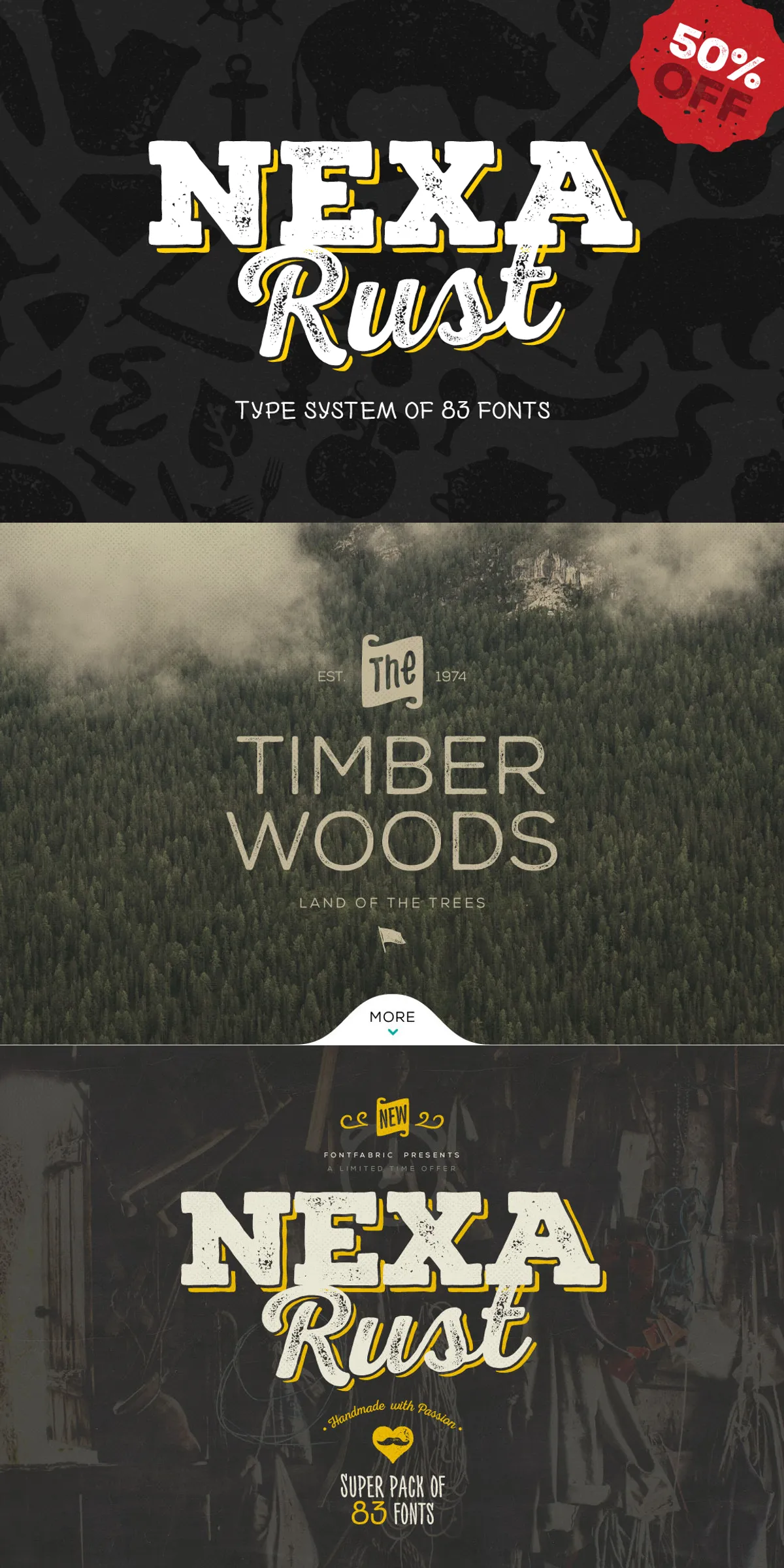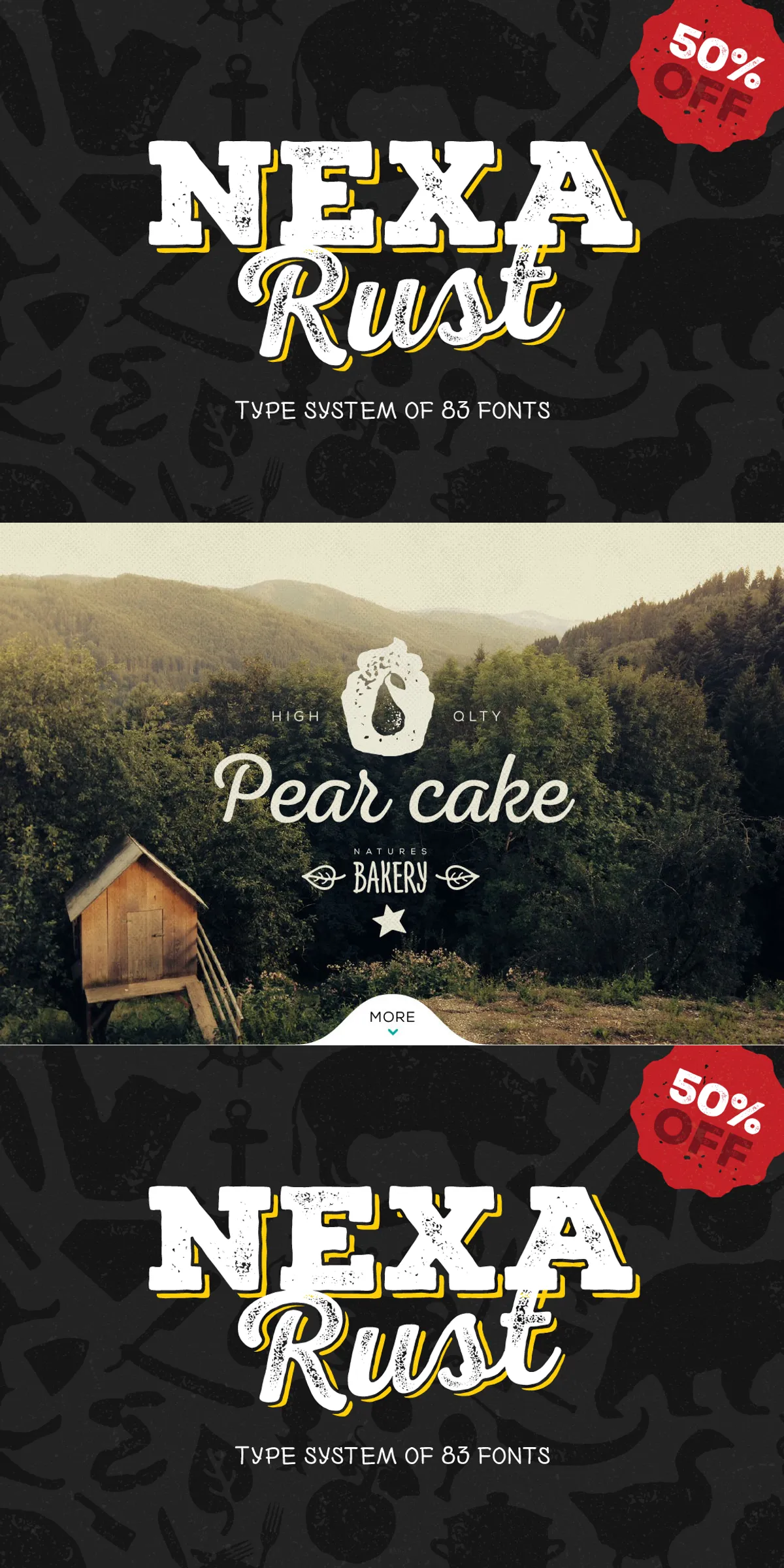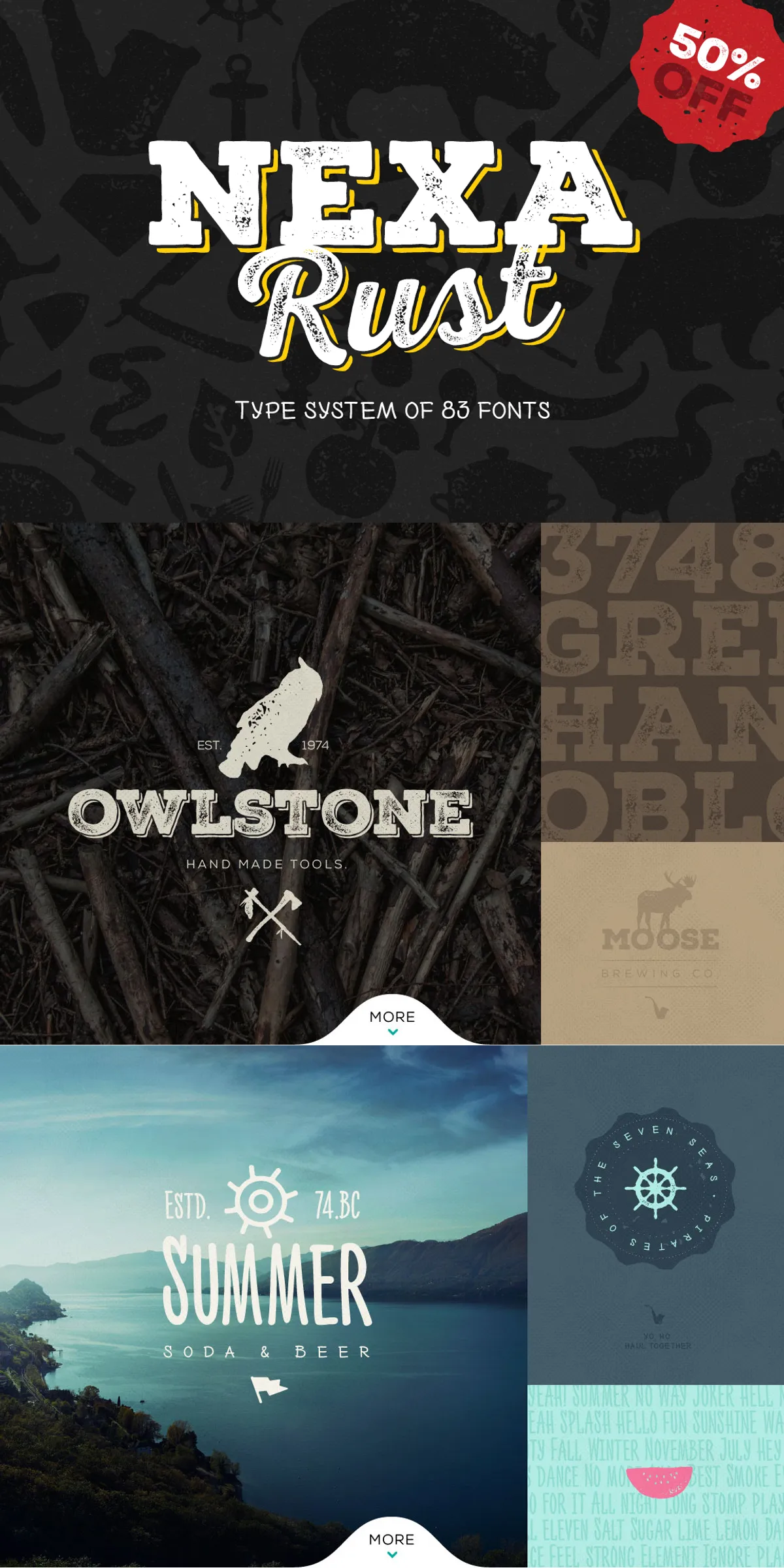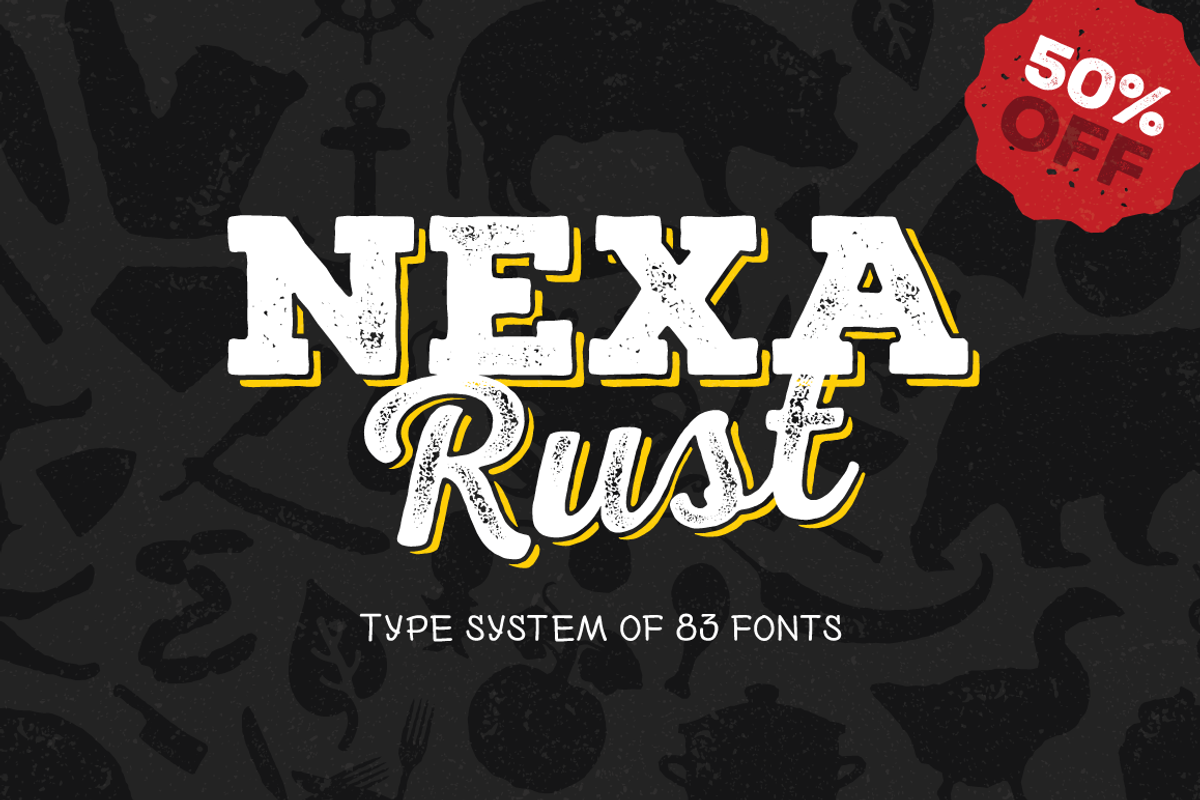
Step beyond the polished perfection of standard typefaces and dive into the raw, expressive world of Nexa Rust—a revolutionary font system born from the acclaimed Nexa and Nexa Slab families, now reinvented with a distinct, handcrafted edge. Developed by Fontfabric Type Foundry, Nexa Rust isn’t just a font—it’s a creative movement. Designed for designers who crave authenticity, character, and a touch of controlled chaos, this multifaceted system lets you push boundaries and define your visual voice with bold confidence.
Five Sub-Families, Infinite Possibilities
Nexa Rust is built on a foundation of diversity. With five distinct sub-families, it provides the tools to match any design mood and purpose:
- Nexa Rust Sans: Where clean structure meets organic imperfection. Ideal for modern headlines, editorial layouts, and interfaces that need an edge. The sans-serif style delivers crisp readability with a rough, tactile finish.
- Nexa Rust Slab: A powerful blend of robust slab serifs and a weathered, hand-drawn texture. Perfect for branding, logos, and posters that demand authority and presence. Its sturdy construction stands out in any medium.
- Nexa Rust Script: Introduces a flowing, expressive handwriting feel to the Rust ecosystem. Add elegance, warmth, and personal touch to invitations, product labels, or luxury branding with this beautifully irregular, yet legible script.
- Nexa Rust Handmade: Embrace the artisan spirit. This sub-family mimics the look of hand-stenciled, hand-painted, or hand-drawn lettering—each character carries subtle irregularities and texture that make your design feel truly unique and personal.
- Nexa Rust Extras: The creative cherry on top. This bonus collection includes special glyphs, decorative elements, and stylistic alternates that elevate your project from impressive to unforgettable. Whether it’s a custom icon, a decorative border, or a unique symbol, the Extras add that final, signature detail.
Warm, Rough, and Fully Loaded with Character
What truly sets Nexa Rust apart is its characteristic warm, rough look. Unlike clean, sterile fonts, Nexa Rust embraces imperfection. Subtle variations in stroke width, slight asymmetry, and a carefully calibrated level of saturation mimic real handwork—adding soul to your digital creations. This isn’t just a stylistic choice; it’s a design philosophy that connects your work to the human hand behind it.
Each sub-family is available in multiple weights, from light and delicate to bold and commanding. This range ensures that you can build a consistent, dynamic hierarchy within your design, controlling contrast and emphasis with precision across headlines, subheads, and body copy.
Engineered for Real-World Design, Not Just Theory
Designed with practicality and versatility in mind, Nexa Rust performs flawlessly across an array of applications:
- Branding & Identity: Create a distinctive brand voice with a font that feels authentic, bold, and unapologetically expressive. Ideal for creative agencies, lifestyle brands, and boutique companies.
- Print & Packaging: The rough texture shines in physical media. Whether it’s a coffee bag, a poster, or a business card, the tactile aesthetic makes your design stand out in the real world.
- Event & Festival Graphics: Perfect for stage designs, flyers, and social media content for music festivals, art exhibitions, and cultural events—where energy and character are paramount.
Ignite Your Creativity with Nexa Rust
Why choose a font that blends in? Choose one that makes a statement. Nexa Rust from Fontfabric Type Foundry gives you the freedom to create with authenticity, emotion, and unmatched character. It’s not just a tool—it’s your creative partner in building bold, expressive, and unforgettable designs.